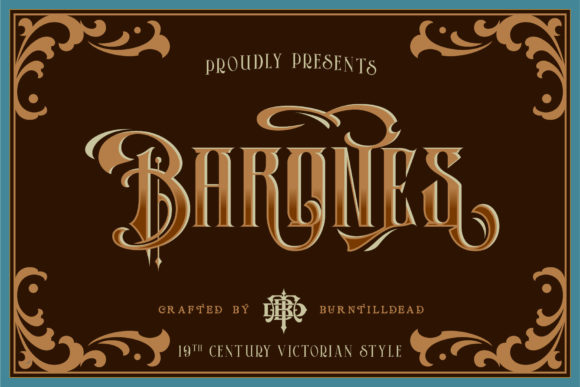
Introducing Barones Font: A Bold and Distinct Blackletter Font Inspired by Victorian Style
In the world of typography, fonts play a crucial role in conveying messages, expressing emotions, and creating a lasting impression. Among the numerous fonts available, Barones Font stands out as a bold and distinct blackletter font that draws inspiration from the Victorian style. This font is not only visually stunning but also highly functional, making it an excellent addition to any design project.
What is Barones Font?
Barones Font is a modern blackletter font that pays homage to the ornate and intricate typography of the Victorian era. Characterized by its dramatic flourishes, sharp serifs, and bold lines, this font exudes elegance, sophistication, and a touch of mystery. Its unique design makes it perfect for use in various applications, such as titles, headings, logos, and even body text.
Key Features of Barones Font
- PUA Encoding: Barones Font is PUA (Private Use Area) encoded, which means that it includes a wide range of glyphs and swashes that can be easily accessed and used in your designs.
- Bold and Distinct: The font’s bold and distinct design makes it perfect for creating eye-catching titles, headings, and logos.
- Victorian Inspiration: Barones Font draws inspiration from the ornate and intricate typography of the Victorian era, adding a touch of elegance and sophistication to your designs.
- Highly Versatile: This font can be used in a wide range of applications, including print, digital, and web design.
Benefits of Using Barones Font
- Adds Elegance and Sophistication: The font’s Victorian-inspired design adds a touch of elegance and sophistication to your designs, making them perfect for high-end brands, luxury products, and creative agencies.
- Creates Visual Impact: The bold and distinct design of Barones Font creates a lasting visual impact, drawing attention to your message and making it more memorable.
- Highly Readable: Despite its ornate design, Barones Font is highly readable, making it suitable for use in body text and other applications where legibility is crucial.
- Unique and Distinctive: The font’s unique design sets it apart from other fonts, making it an excellent choice for brands looking to establish a distinctive visual identity.
How to Use Barones Font in Your Design Projects
- Pair it with Other Fonts: Barones Font can be paired with other fonts to create a unique and visually appealing typography. Try pairing it with a sans-serif font for a bold and modern look.
- Experiment with Colors: The font’s bold design makes it perfect for use in a variety of colors. Experiment with different colors and gradients to create a unique visual effect.
- Use it for Titles and Headings: Barones Font is perfect for use in titles and headings. Use it to create eye-catching titles that draw attention to your message.
- Add Swashes and Glyphs: The font’s PUA encoding makes it easy to access and use a wide range of swashes and glyphs. Add them to your design to create a more ornate and intricate look.
- Font Style: Blackletter
- Inspiration: Victorian style
- Encoding: PUA
- Use Cases: Titles, headings, logos, body text